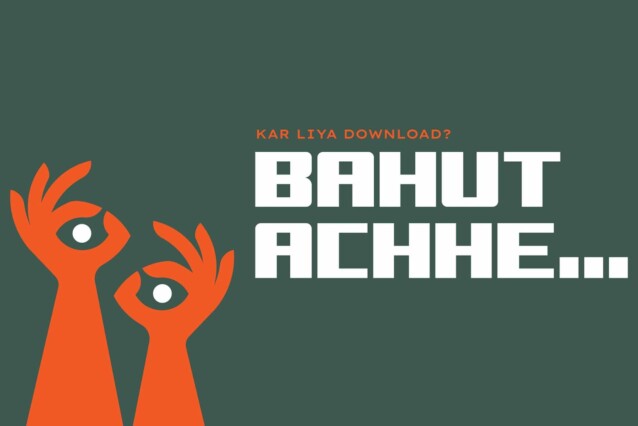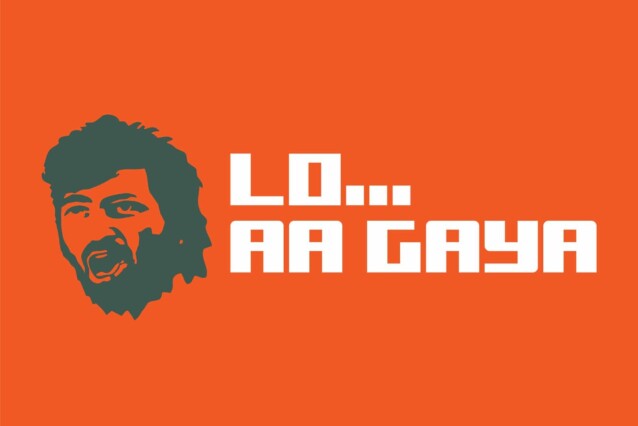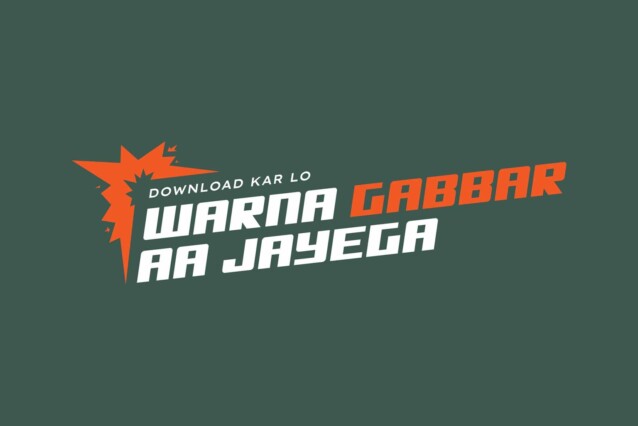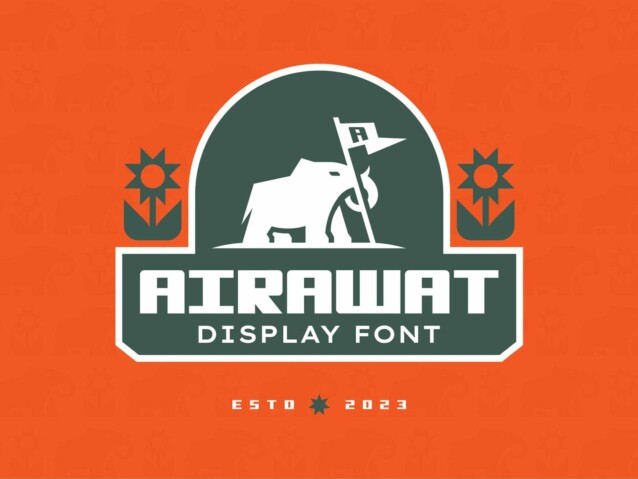
Airawat Font
Airawat Font is a futuristic display font crafted & designed by Amit Yogi. It’s fun and groovy with a bold personality. Inspired by Indian posters of the ’90s, this typeface can be used in your posters, headings, packaging, and even branding. The font is a great addition to your library making it on your table for both personal and commercial use.